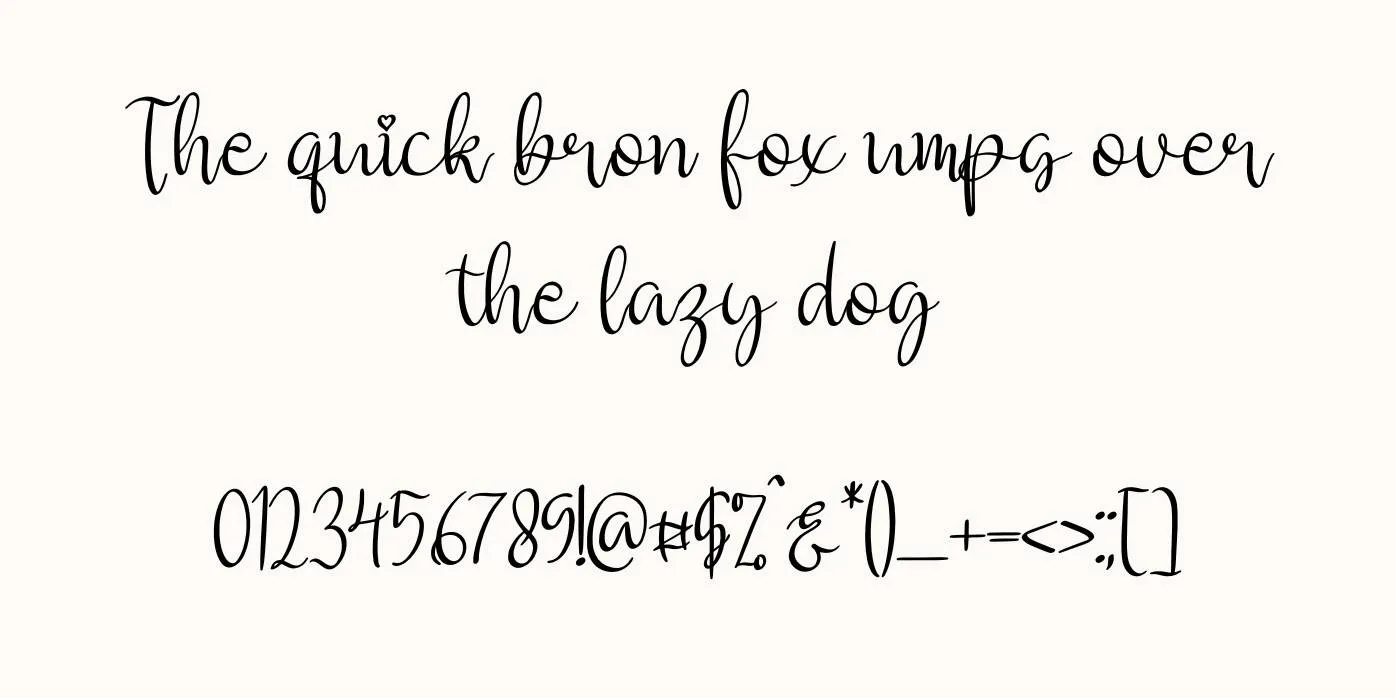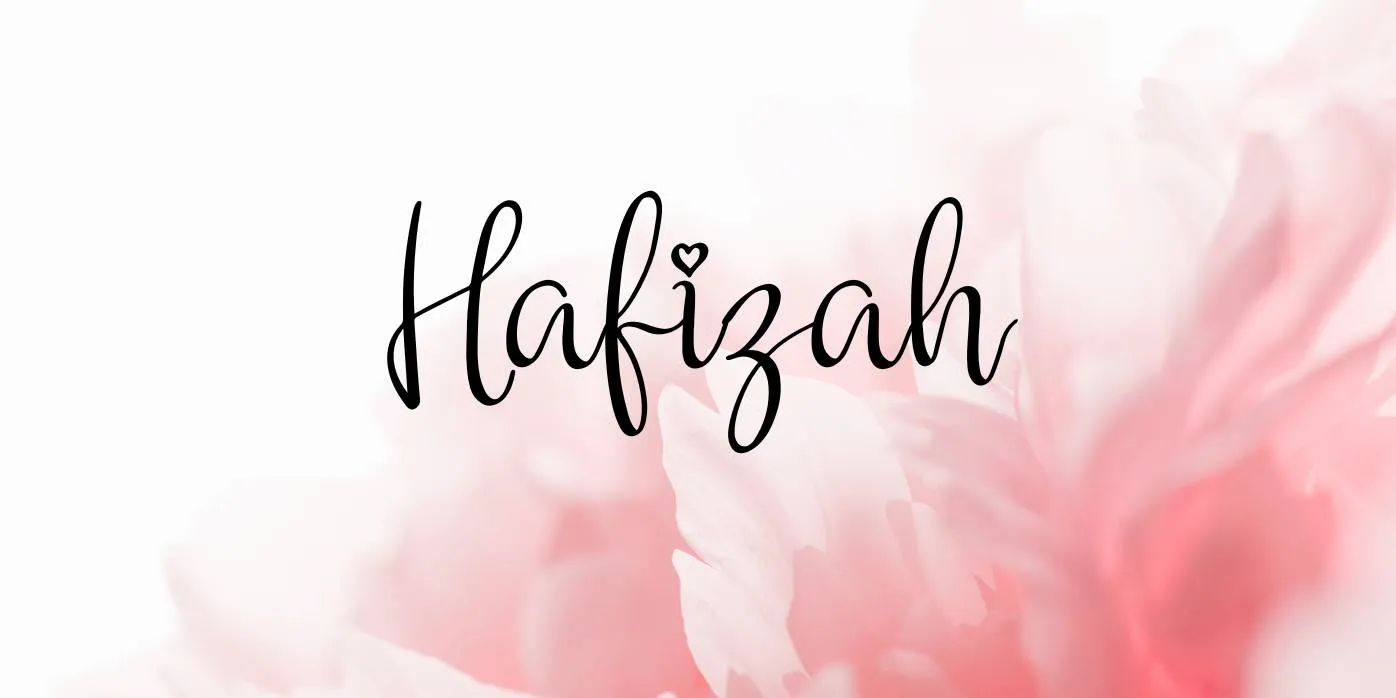
Hafizah Font
Hafizah Font is a very thin and lovely typeface that was inspired by lettering used on romantic cards. The font was created by a very popular studio named Perspectype. This is a calligraphy typeface that comes in both ttf and otf formats. This is a proportionally spaced typeface design that contains the full set of glyphs and characters.
Its regular style comprised of uppercase, lowercase, punctuation, numerals, swashes, ligature, and some special characters. In the early century, it becomes the famous calligraphy typeface in the font industry. You can also generate it through an online font generator tool. Usage You can utilize it for making fancy cards or any other decorative purpose.
Many cosmetics products use it for their logo and information section on their products because of its professional appearance. This font is mainly seen on book covers, titles, and in their body text. If you are a professional designer then you can easily use this font for many designs like logos, magazines, books, web designing, and various other purposes. However, if you want to pair the typeface with some really cool font then try bellisa font for your design project.